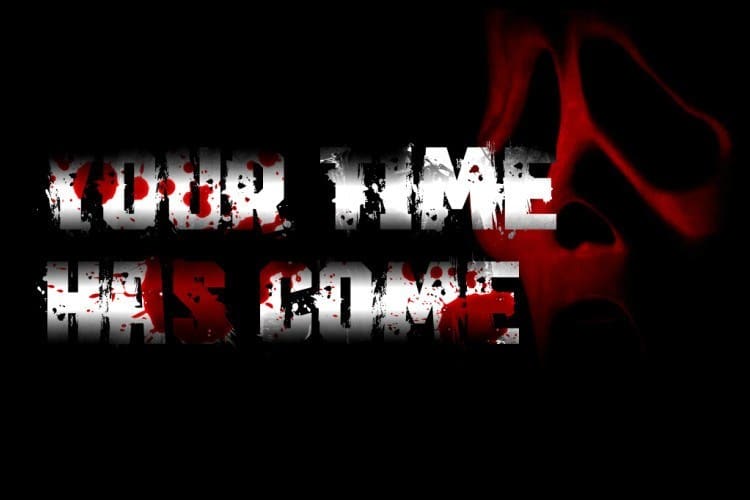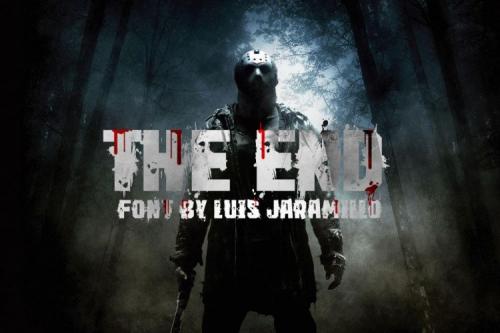
It is not the end of our sources, but it is the title chosen for this special edition source.
A war design with a real mess of scratches and dirt, we believe it is a source that you do not want to see one night in someone who does not have good intensities …
well, we have a geometric horror style ready to create dark illustrations and A lot of practicality.